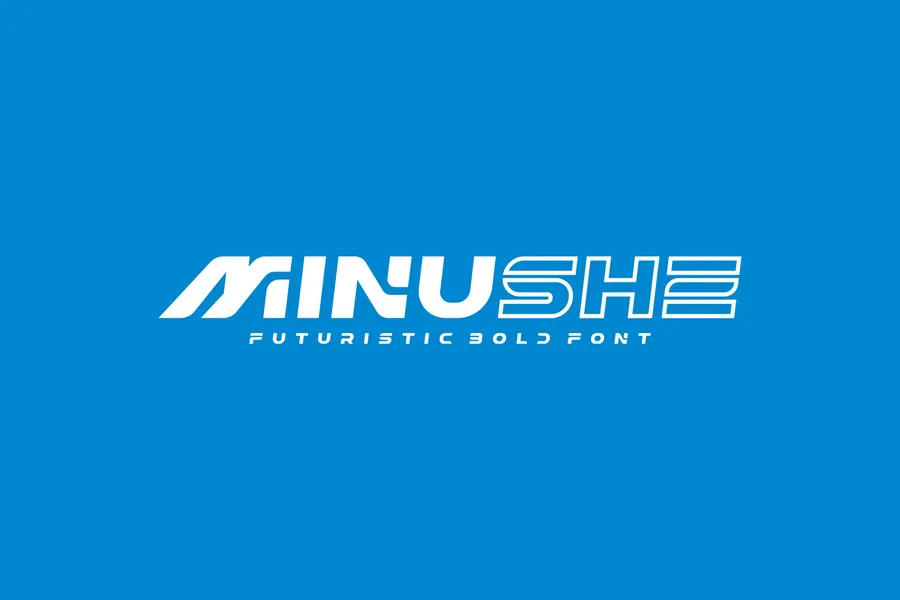
Minushe – Futuristic Bold Font
Introducing our new product Minushe Font – Modern Font
Minushe Font- Modern Font is a bold and authentic display font. The font is suitable for any branding project like logo, esport, and many more. outstanding in a wide range of contexts.